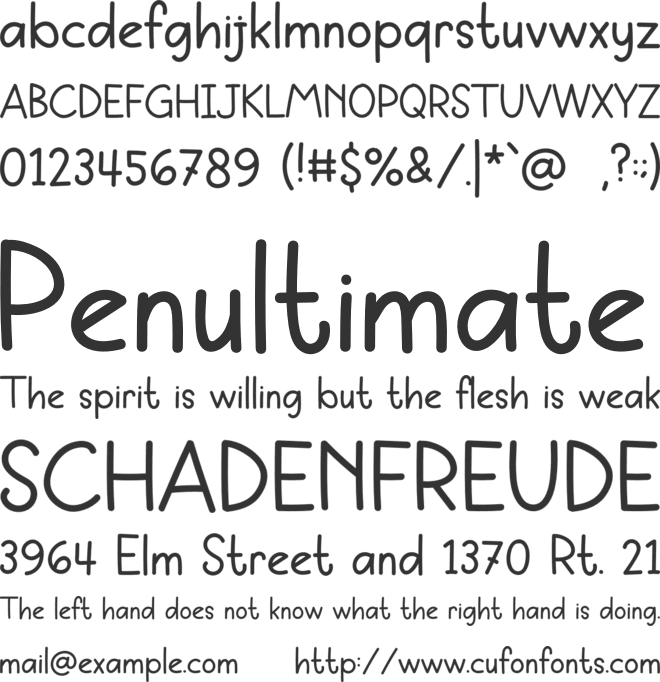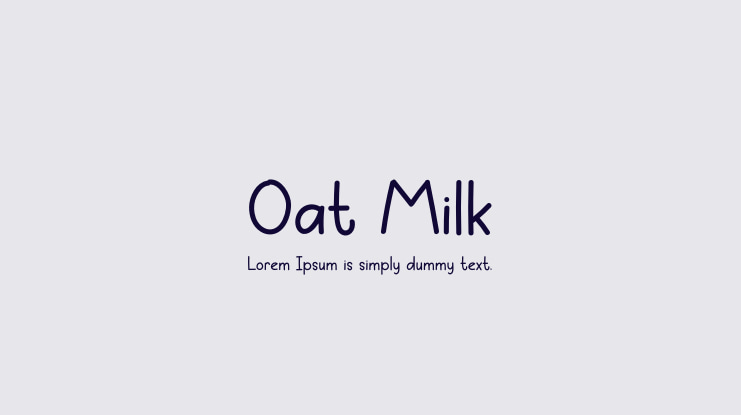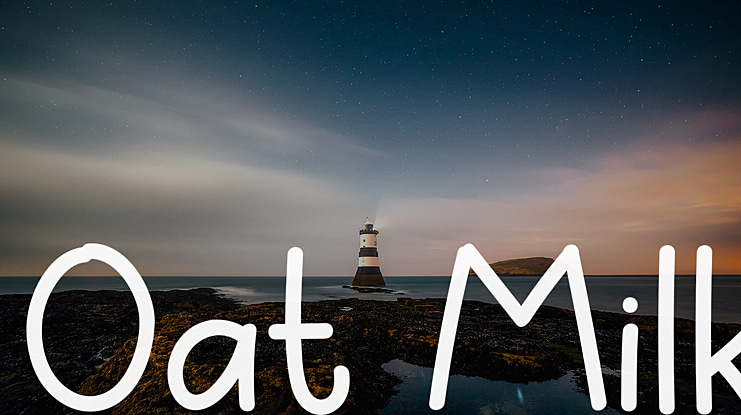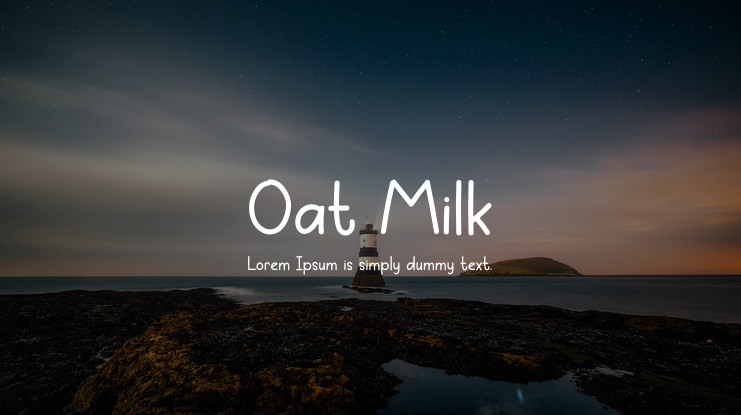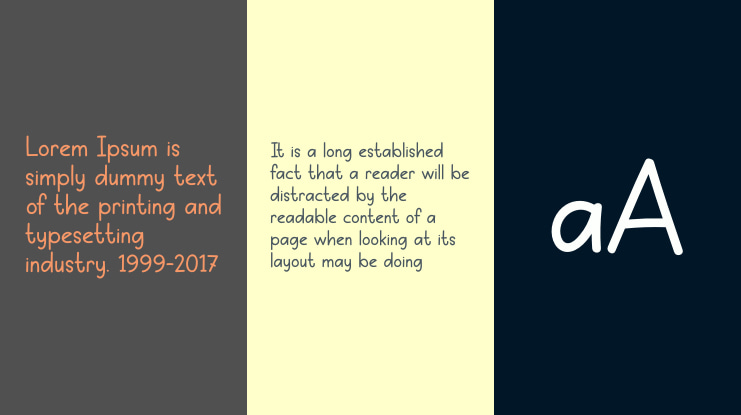
Oat Milk Font
Oat Milk is a sweet, simple lettered and adaptable handwritten font. Its cute and full of life style makes this font a wonderful choice for brightening up your designs.